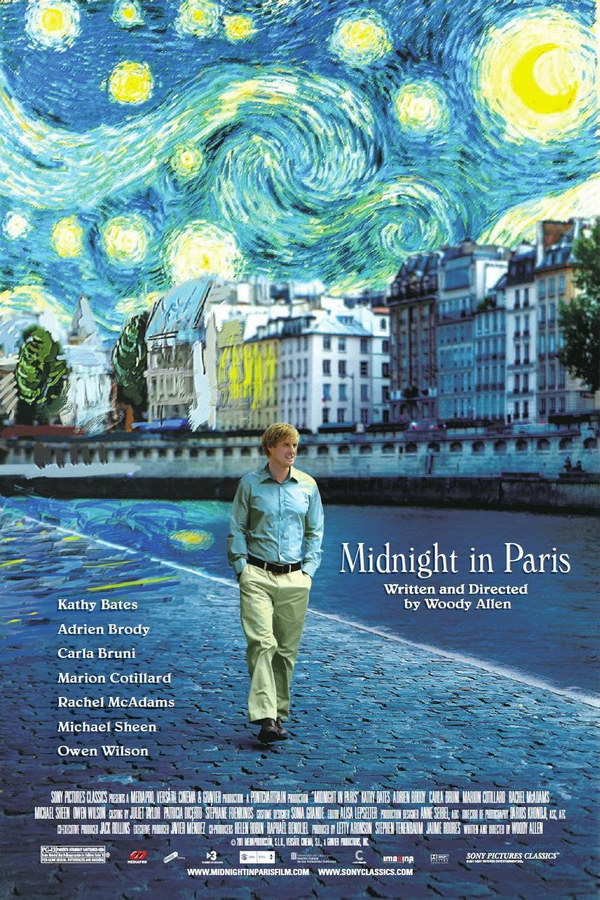
Midnight in Paris Font
The font used for the film title "Midnight in Paris" on the poster is most likely Windsor, a vintage serif display font created by Eleisha Pechey in 1905. The font is available commercially and can be purchased here.